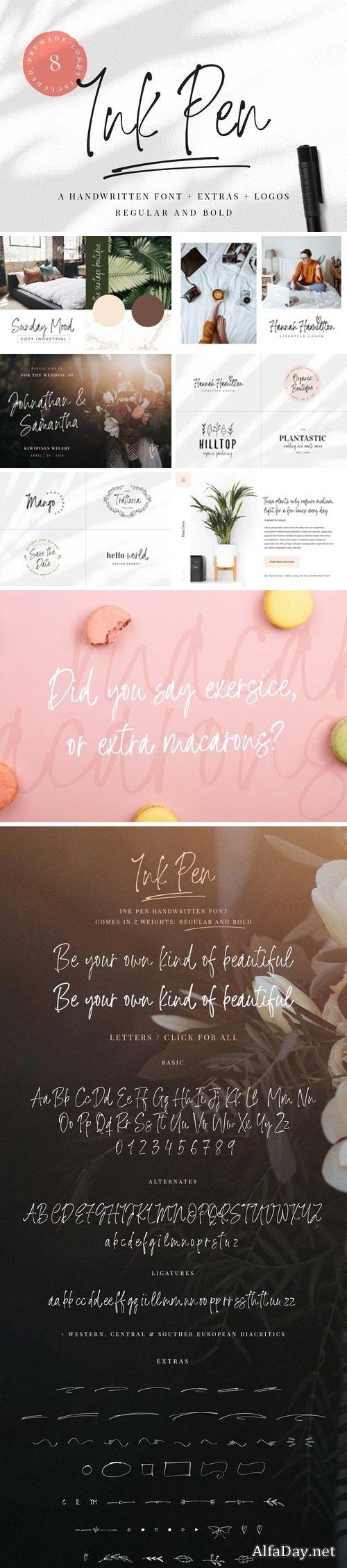
CM - Ink Pen Handwritten Font 2931610
Ink Pen Handwritten Font is a unique 2 weight modern handwritten font. It's inky look style makes it perfect for use in all your hand lettering projects be it wedding invitations, logos, posters, ads or other design projects.